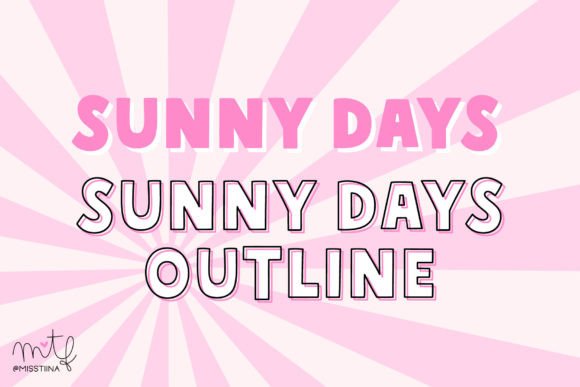
Sunny Days Font: Adding a Splash of Fun to Your Designs
Are you tired of using the same old fonts for your designs? Do you want to add a touch of fun and playfulness to your creations? Look no further than Sunny Days Font! This fun, cartoon-like display font is perfect for taking your designs out of the ordinary and making them stand out from the crowd.
What is Sunny Days Font?
Sunny Days Font is a display font designed to add a touch of whimsy and fun to your designs. Its cartoon-like style makes it perfect for use on bold and bright creations such as banners, posters, covers, titles, magazines, and more. The font is designed to be eye-catching and attention-grabbing, making it ideal for use in a variety of applications.
Features of Sunny Days Font
So, what makes Sunny Days Font so special? Here are just a few of its key features:
- Fun and playful style: Sunny Days Font has a fun and playful style that’s perfect for adding a touch of whimsy to your designs.
- Cartoon-like design: The font’s cartoon-like design makes it perfect for use on bold and bright creations.
- Display font: Sunny Days Font is a display font, making it perfect for use on titles, headings, and other large text elements.
- Easy to read: Despite its playful style, Sunny Days Font is easy to read, even at smaller sizes.
Uses for Sunny Days Font
So, what can you use Sunny Days Font for? The possibilities are endless! Here are just a few ideas to get you started:
- Banners: Use Sunny Days Font to create eye-catching banners that are sure to grab attention.
- Posters: Add a touch of fun and whimsy to your posters with Sunny Days Font.
- Covers: Use Sunny Days Font to create bold and eye-catching covers for books, magazines, and more.
- Titles: Add a touch of personality to your titles with Sunny Days Font.
- Magazines: Use Sunny Days Font to add a touch of fun and playfulness to your magazine designs.
Benefits of Using Sunny Days Font
So, why should you use Sunny Days Font? Here are just a few benefits of using this fun and playful font:
- Adds a touch of personality: Sunny Days Font adds a touch of personality to your designs, making them stand out from the crowd.
- Eye-catching: The font’s bold and playful style makes it perfect for grabbing attention.
- Versatile: Sunny Days Font can be used in a variety of applications, from banners and posters to titles and magazines.
Tips for Using Sunny Days Font
Here are just a few tips for using Sunny Days Font:
- Use it sparingly: While Sunny Days Font is fun and playful, it can be overwhelming if used too much. Use it sparingly to add a touch of personality to your designs.
- Pair it with other fonts: Sunny Days Font pairs well with other fonts, such as serif and sans-serif fonts. Experiment with different font combinations to find the perfect look for your design.
- Experiment with colors: Sunny Days Font looks great in a variety of colors. Experiment with different colors to find the perfect look for your design.
Sunny Days Font is a fun and playful display font that’s perfect for adding a touch of whimsy to your designs. Its cartoon-like style makes it perfect for use on bold and bright creations such as banners, posters, covers, titles, magazines, and more. With its ease of use and versatility, Sunny Days Font is a great addition to any designer’s font library.
- What is Sunny Days Font?
- Sunny Days Font is a fun, cartoon-like display font capable of taking any product out of the ordinary!
- What can I use Sunny Days Font for?
- You can use Sunny Days Font for a variety of applications, including banners, posters, covers, titles, magazines, and more.